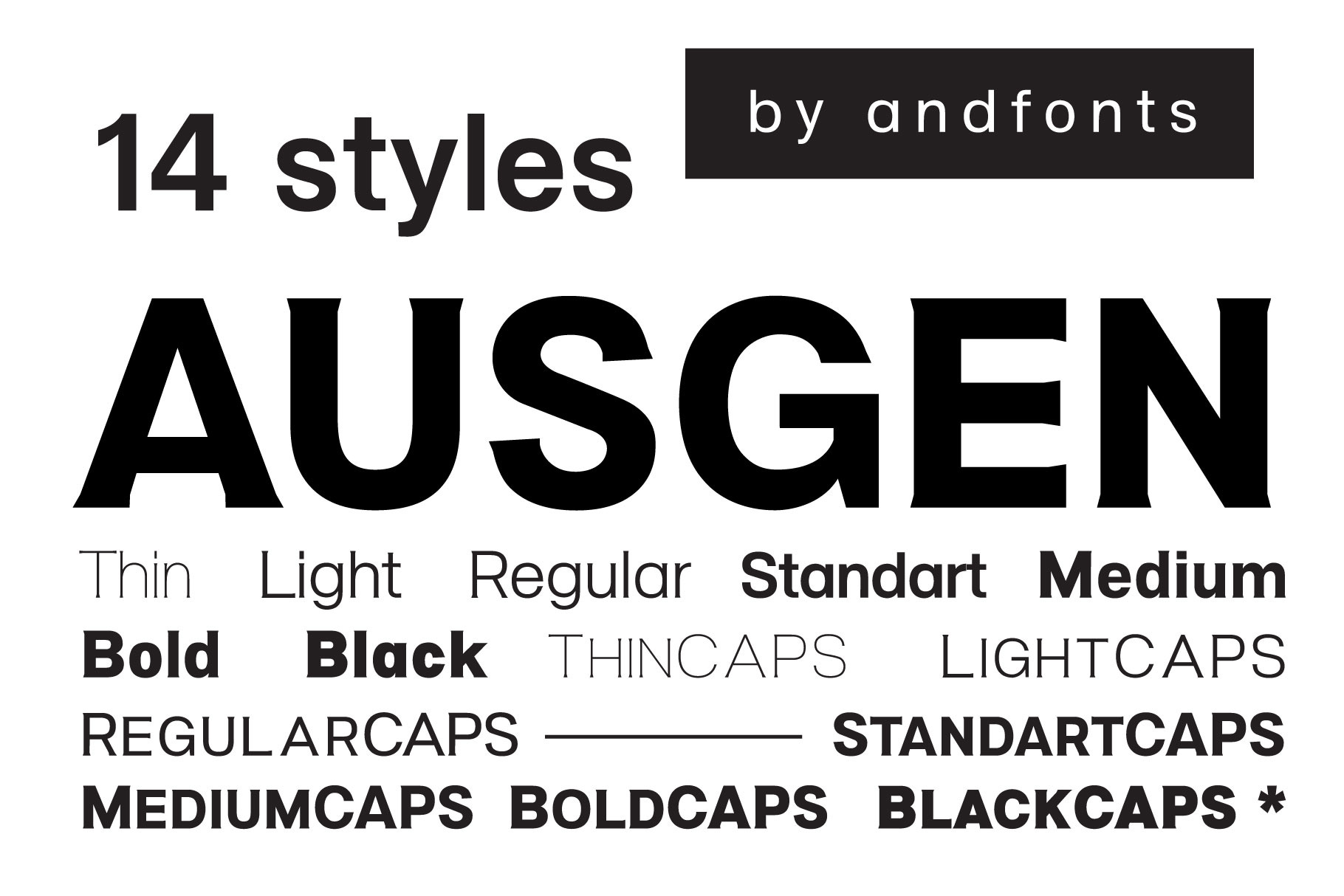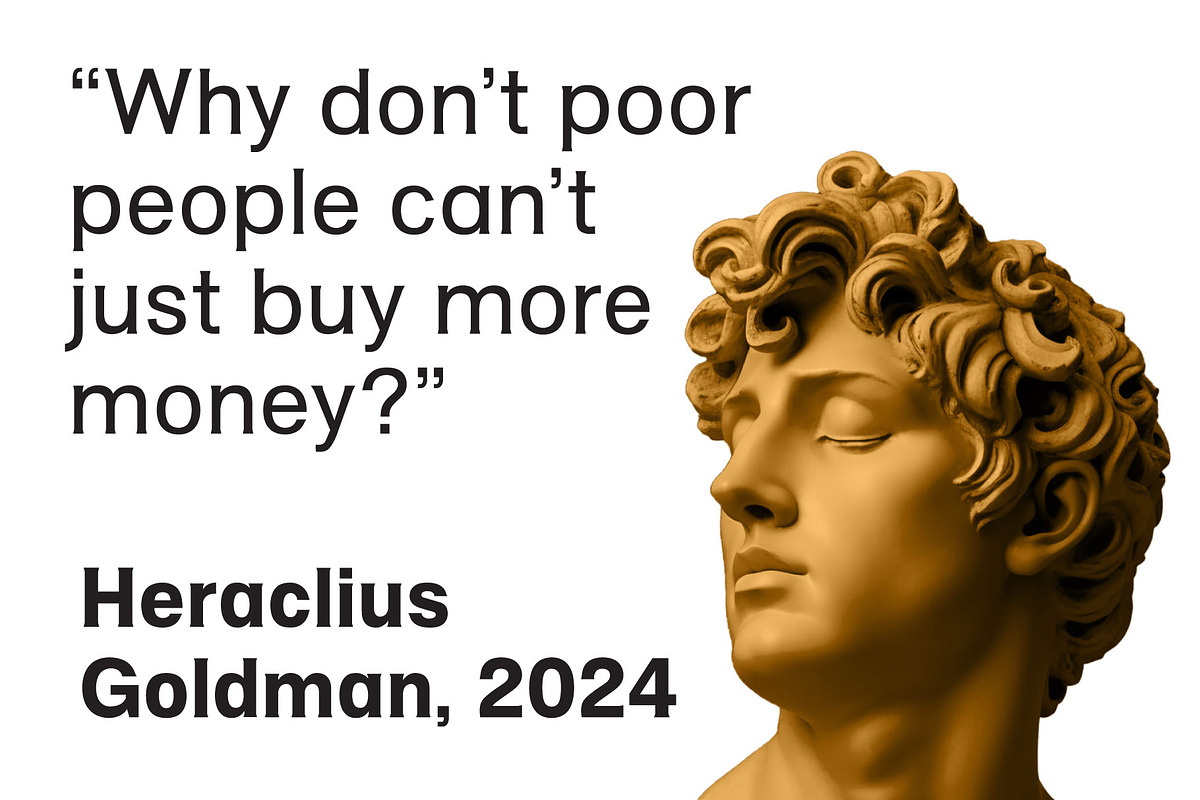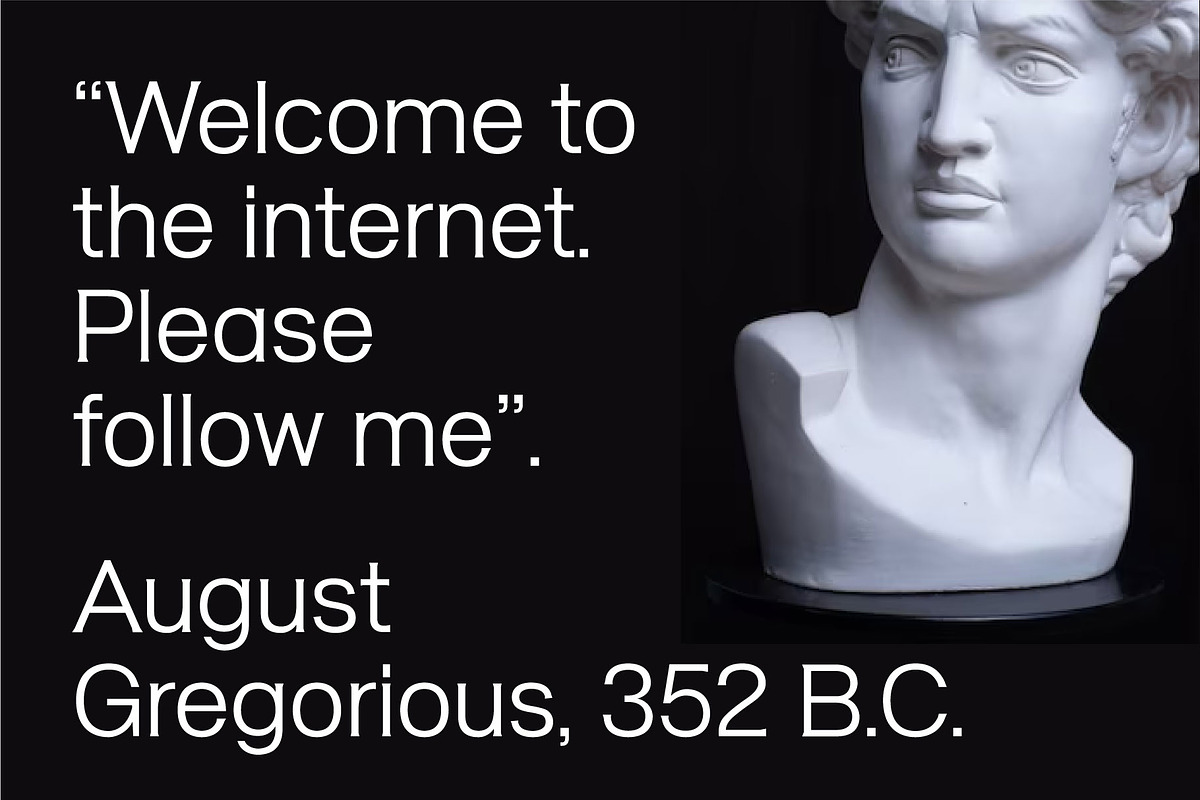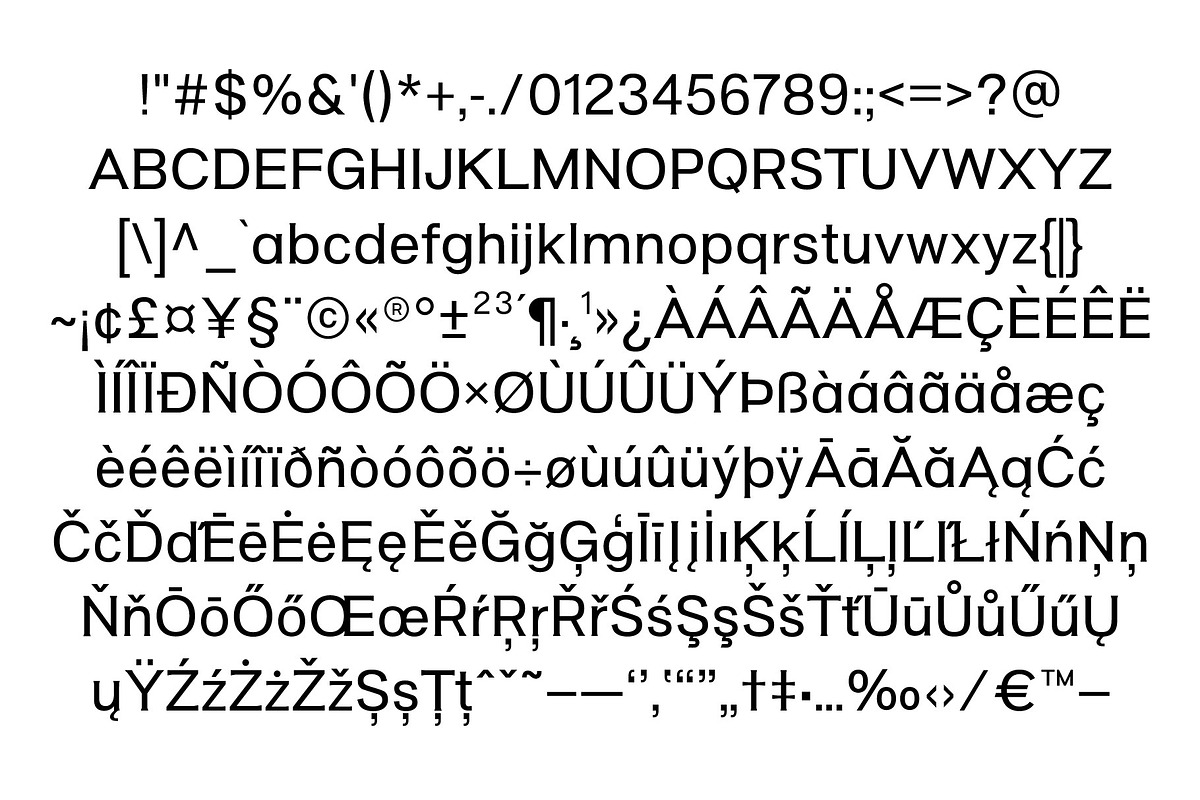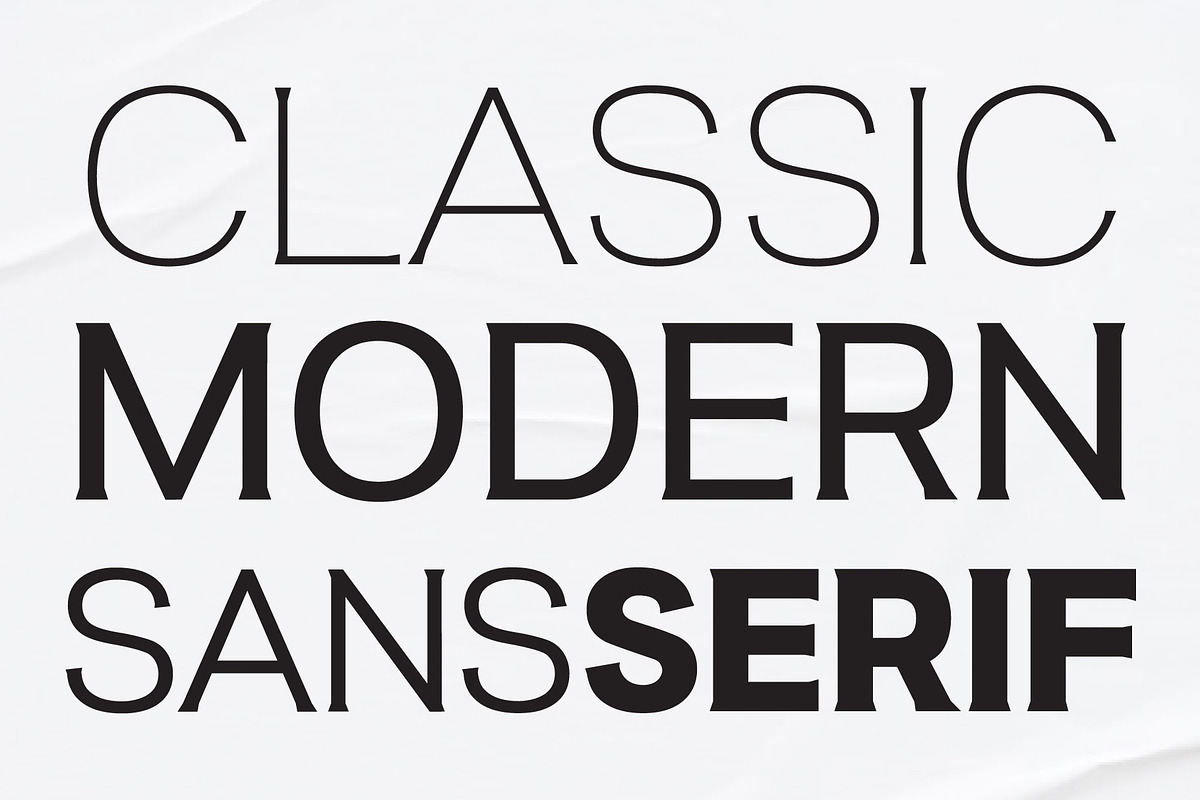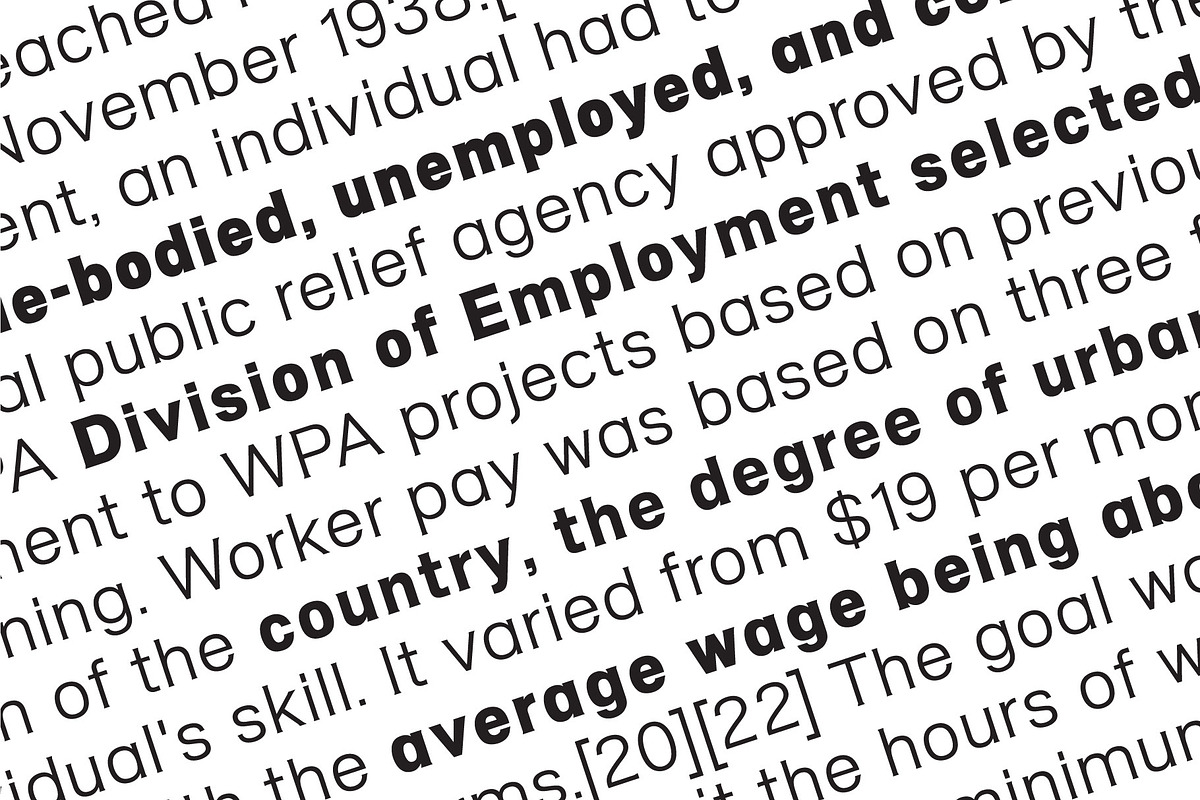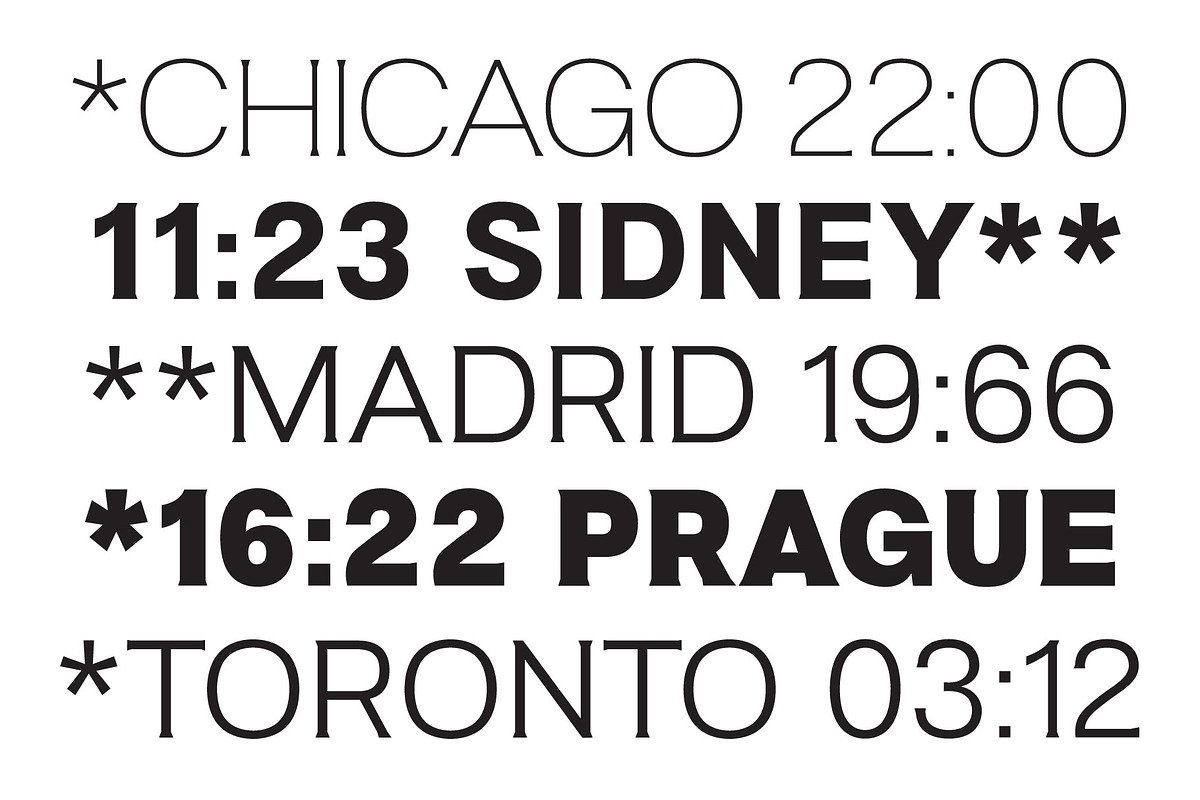
Ausgen, Modern Serif Font
Ausgen is a captivating modern serif font that seamlessly blends the sleek sophistication of sans-serif fonts with the timeless elegance of serifs. What sets Ausgen apart is its versatility, boasting seven distinct styles of caps. From bold and assertive to refined and understated, these variations offer endless possibilities for creating visually striking designs.